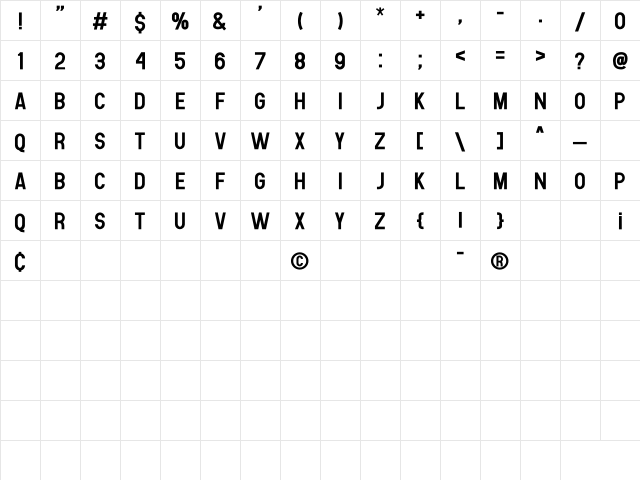
Human Regular
Design Context for Human Typeface
Human is a composed and adaptable typeface that performs quietly and consistently across a wide range of design contexts.